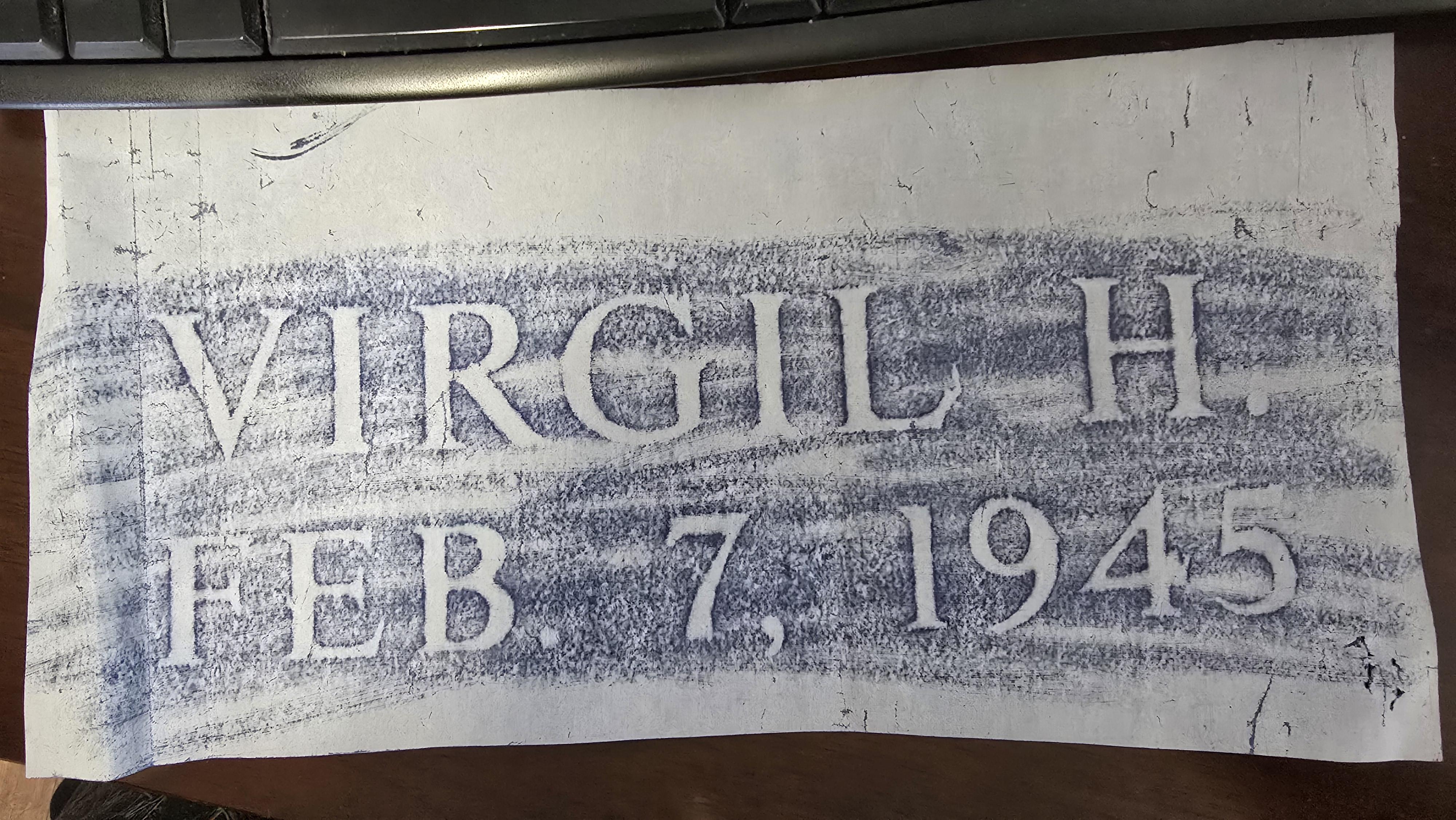
Can’t seem to find this one
This one looks so close to a few fonts but I just can’t quite match it, any clue what it might be?font example
Hello, this is a custom Cold Spring Granite font named Monument Times New Roman, which contains some smaller differences to the letters, and a completely different set of numerals.